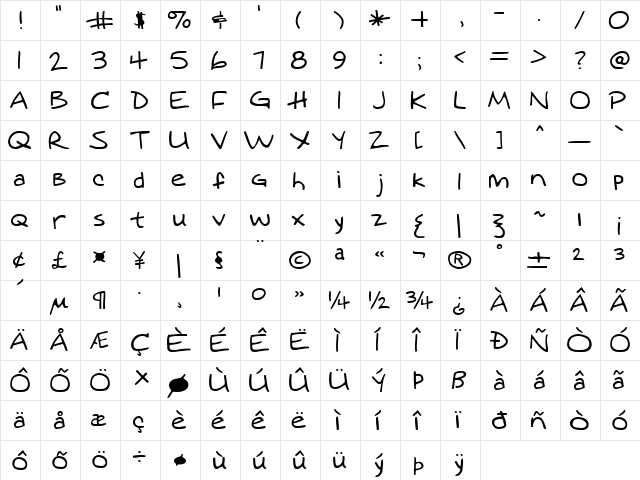
augie Regular
Design Context for augie Typeface
augie is a composed and adaptable typeface that performs quietly and consistently across a wide range of design contexts.
Pro Tip: Pair augie with a font of contrasting weight or personality to build a more expressive typographic hierarchy.